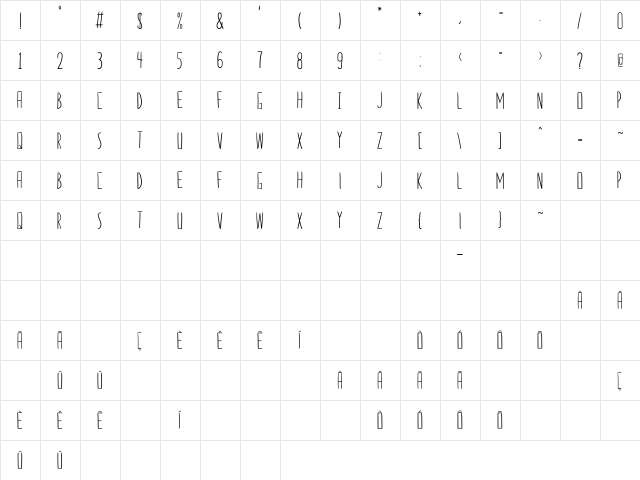
2colorideas sans Regular
| Foundry | High-Logic |
| Designer | Kimberly Geswein |
Design Context for 2colorideas sans Typeface
2colorideas sans takes a measured approach to typography — its balanced proportions and neutral character make it a reliable workhorse for both digital and print work.